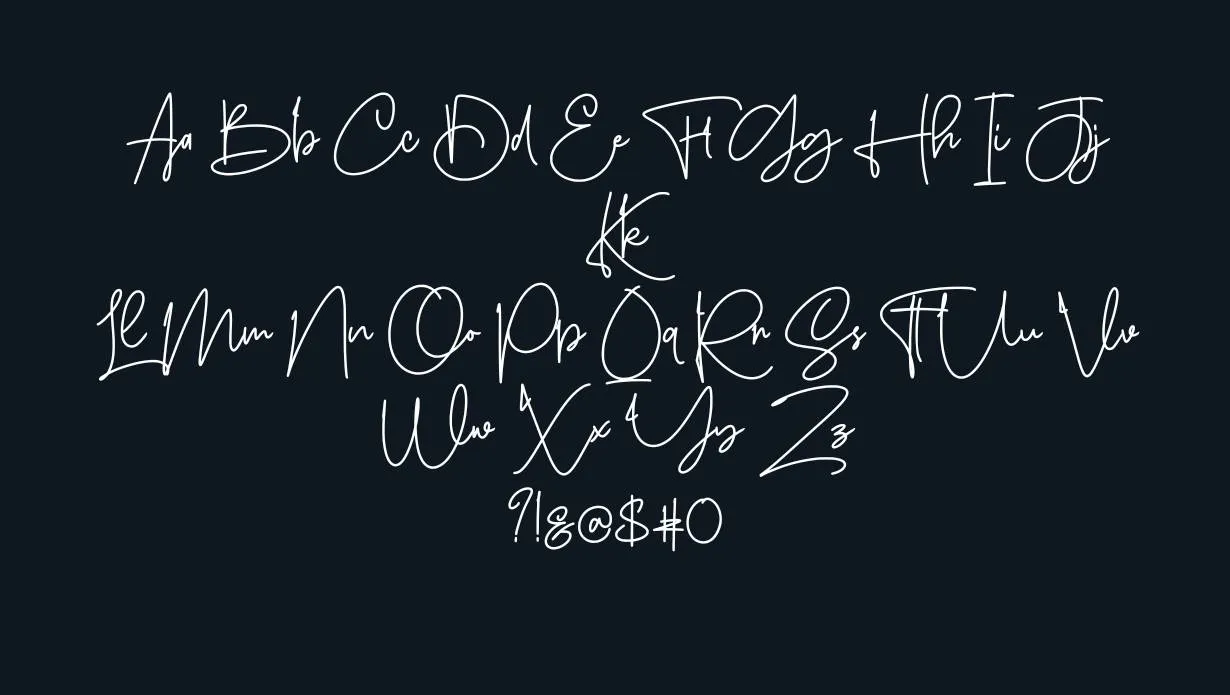
The Sanpaullo Signature font adds a personal and handwritten touch to your text. Its cursive script gives off an air of warmth and authenticity, making it perfect for projects that require a personal connection.
Whether you’re creating a heartfelt letter, a signature logo, or anything that needs a touch of individuality, the Sanpaullo Signature font brings a personal and inviting vibe to your words.
Let your text tell a story with the intimate charm of the Sanpaullo Signature font.